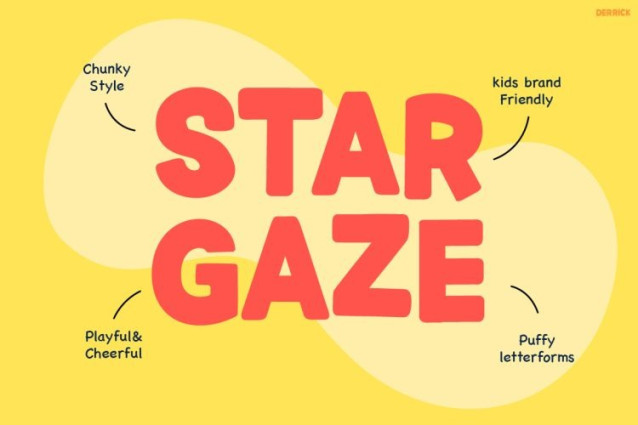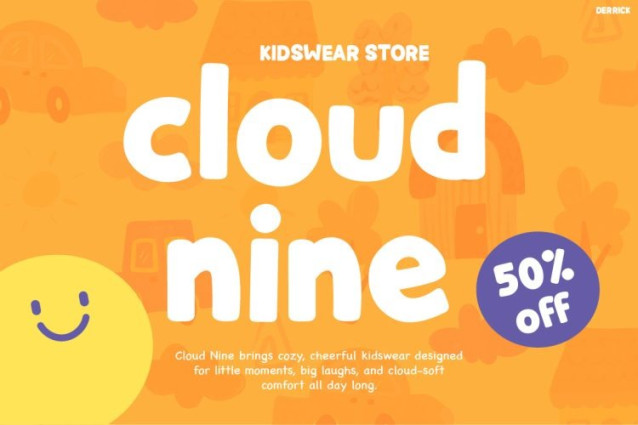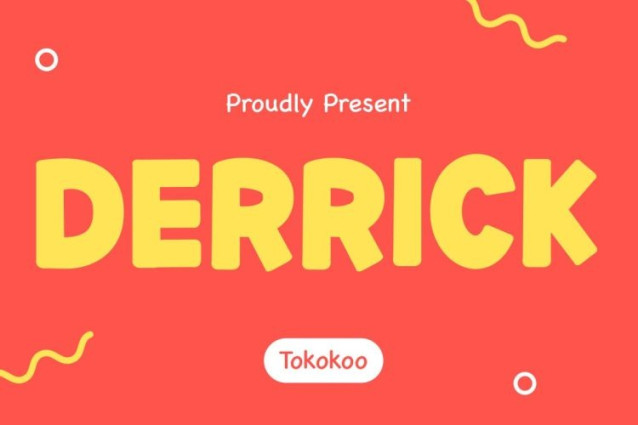
Derrick Font
Derrick Font brings bold energy, cheerful character, and expressive style to every design. This playful display typeface instantly captures attention with chunky letterforms and smooth rounded edges. The letters feel confident yet friendly. Because of that balance, DERRICK looks fun without feeling chaotic. The strong shapes improve readability, while the lively style adds personality. As a result, designers can communicate joy, confidence, and creativity with ease.
Visually, Kids Font DERRICK shines through thick strokes and soft curves. Each letter looks solid and playful at the same time. The spacing keeps text clear, even at smaller sizes. Moreover, the complete character set includes uppercase, lowercase, numbers, and punctuation. Designers can create flexible layouts without extra effort. Whether you use it for short headlines or playful phrases, DERRICK keeps a consistent and charming look. Therefore, it works perfectly for digital and print projects that need a friendly and modern tone.
Kids Font DERRICK helps designers create bold statements and joyful stories. It adds rhythm and movement to words, making designs feel alive. In addition, its friendly letter shapes create a welcoming mood. The font performs especially well in eye-catching layouts and playful branding. Designers can quickly turn simple text into a visual highlight. Because of its strong personality, DERRICK elevates posters, packaging, social media graphics, and kids-focused visuals.